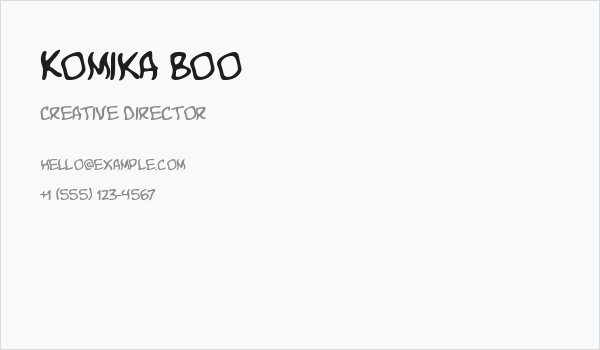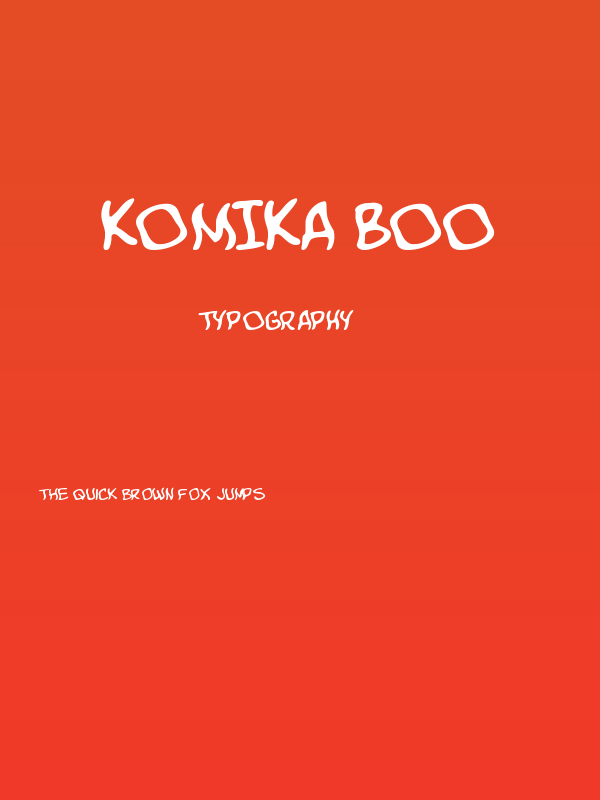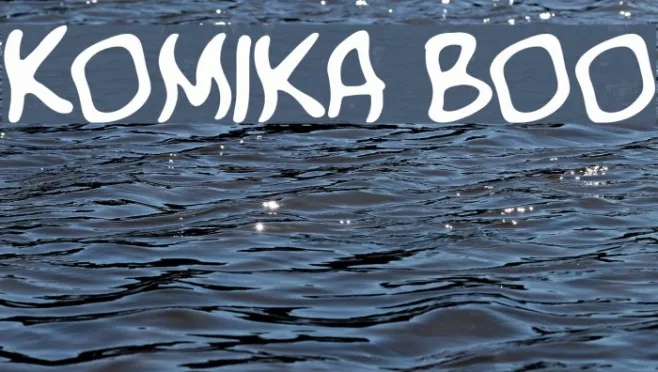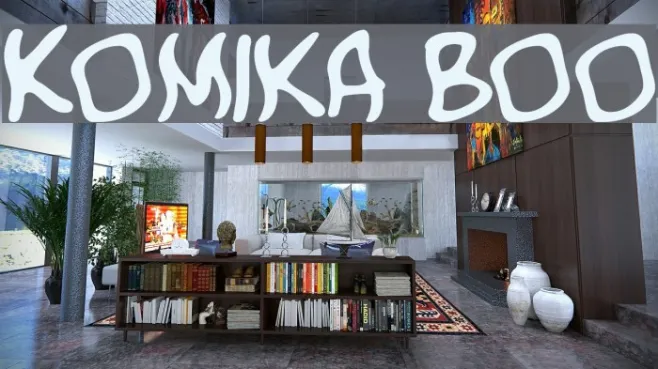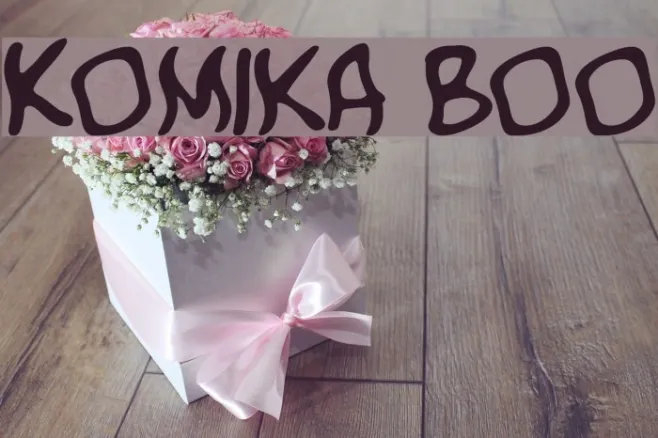
Komika Boo Font
Komika Boo Description
This playful and bold font features a hand-drawn, comic style that exudes a sense of fun and creativity. The letters are rounded and slightly irregular, giving them a whimsical and informal appearance. The uppercase and lowercase characters maintain a consistent style, with a slight slant that adds to the dynamic feel. Numbers and special characters are crafted with the same playful touch, ensuring a cohesive look across all text elements. The font's thick strokes and rounded edges make it highly legible, even at smaller sizes, while its unique style ensures it stands out in any design.
| Proposed Projects | Ideal for comic books, children's books, playful branding, posters, and greeting cards. |